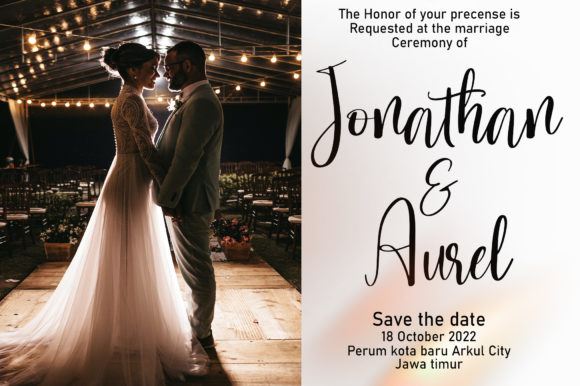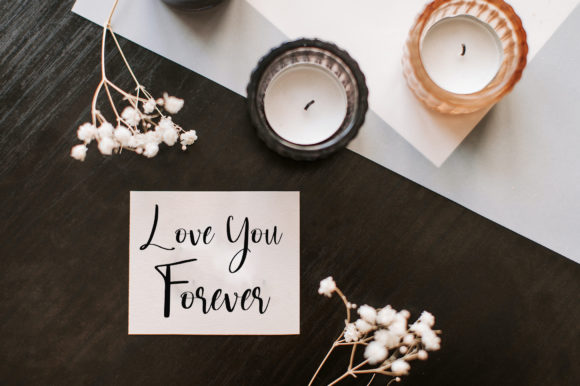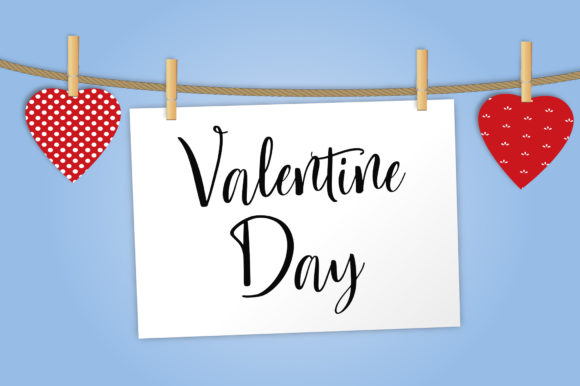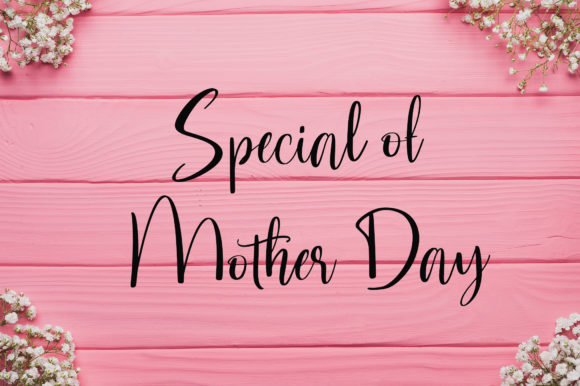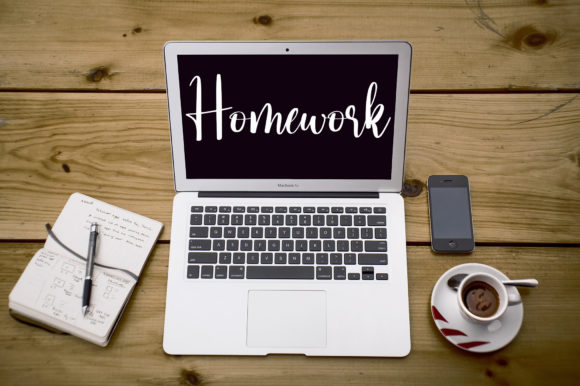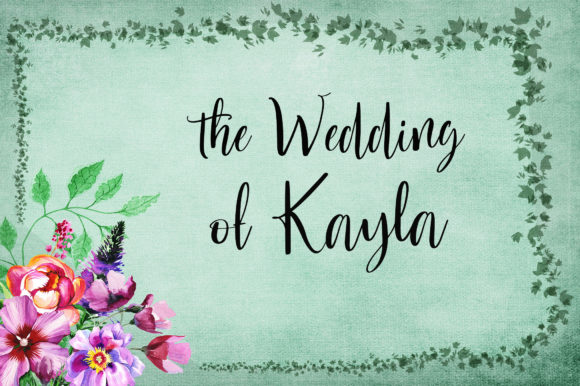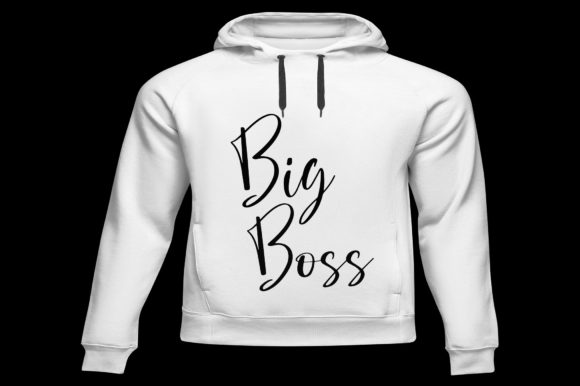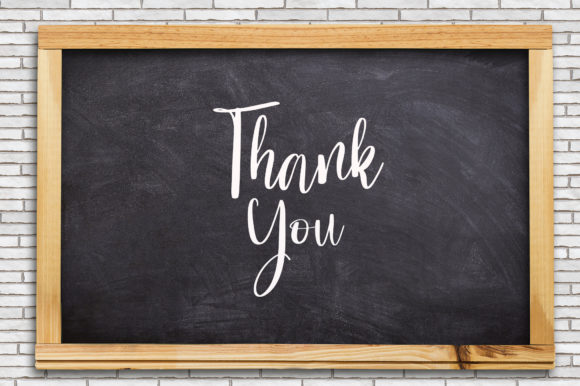
Natasya Font
About Natasya Font
Natasya is a romantic and sweet calligraphy typeface with characters that dance along the baseline. It has a casual, yet elegant touch.